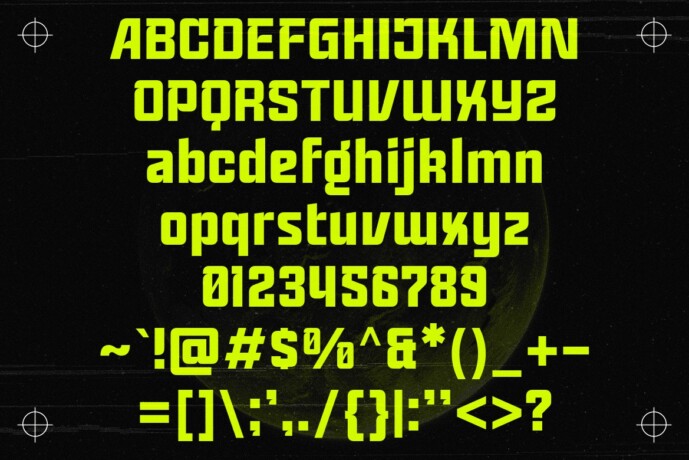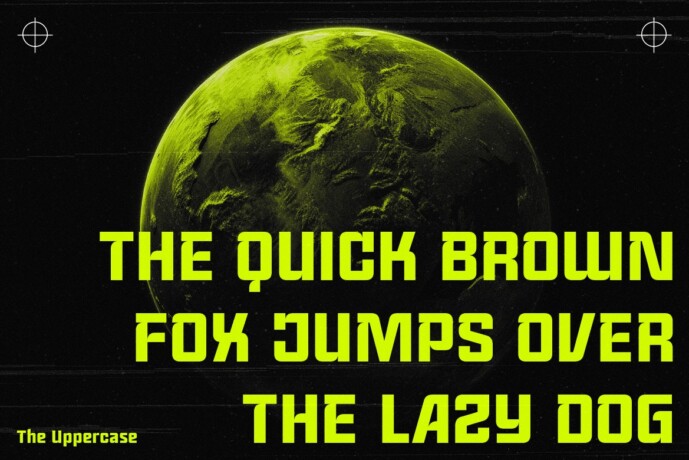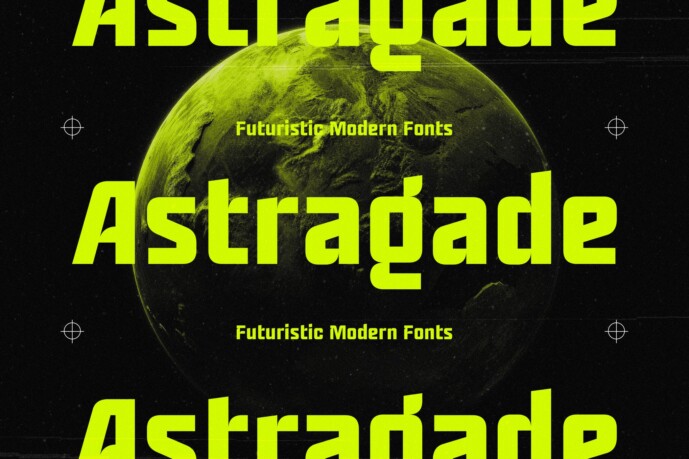
Astragade Font
Astragade Font, a font designed for the bold and the visionary. Perfectly blending a sleek futuristic aesthetic with the cutting-edge vibes of modern branding, Astragade brings a touch of technology and sci-fi that elevates your design to the next level. Whether you’re creating a brutalist poster, designing for the cyberpunk gaming world, or branding a high-tech product, Astragade is the key to standing out.